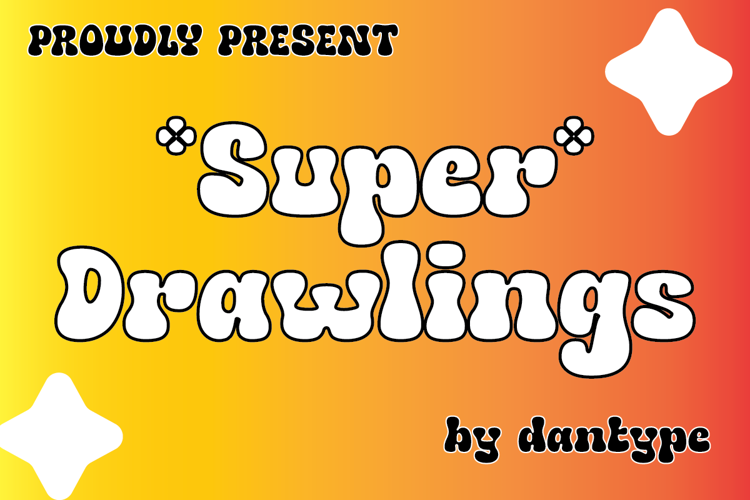
Super Drawlings Font
Super Drawlings Display Font - This font would be perfect for photography, watermarks, social media posts, advertisements, logos & branding, invitations, product design, labels, stationery, product packaging, special events, and other projects. This font is PUA encoded which means you can access all glyphs with ease!